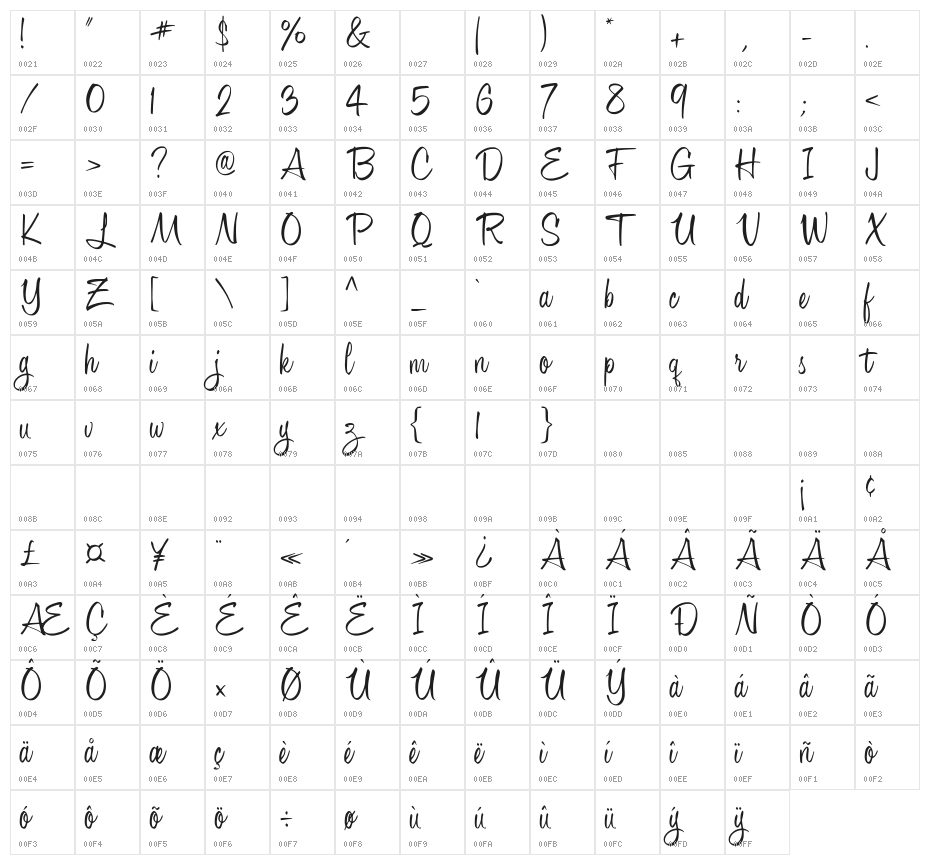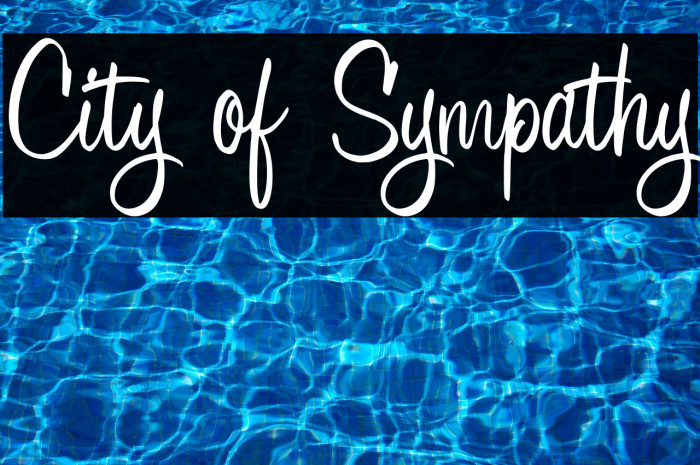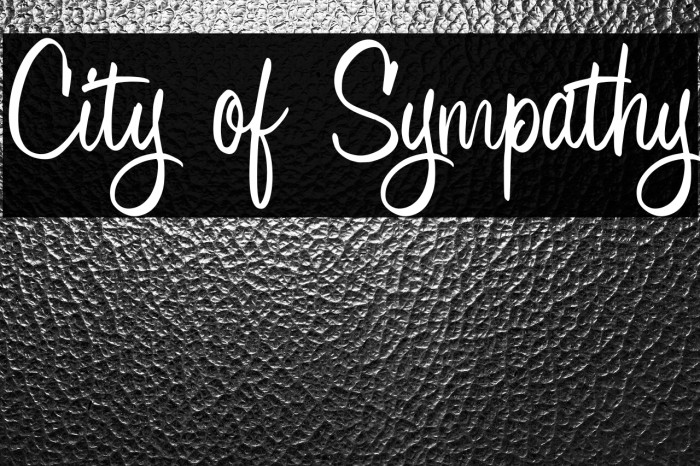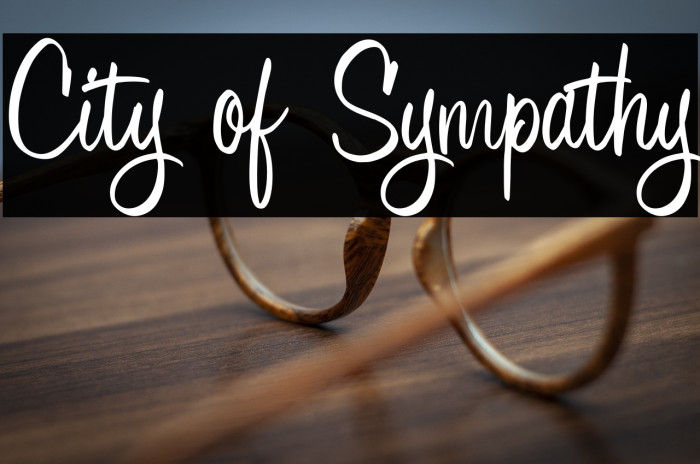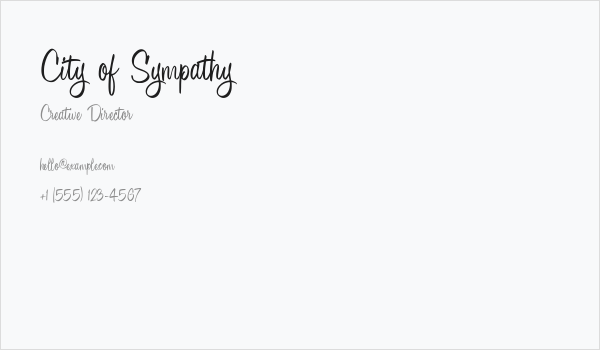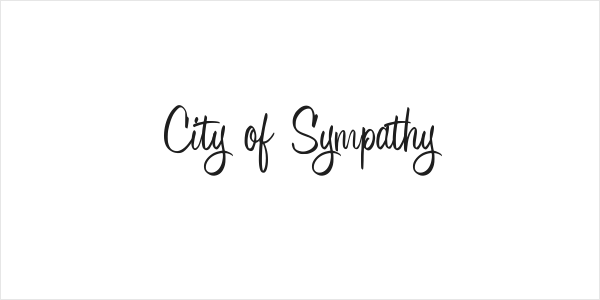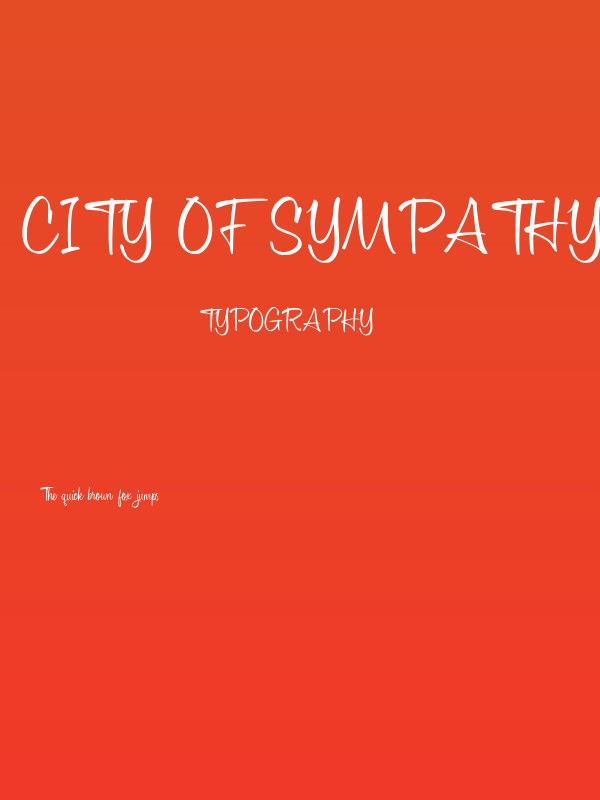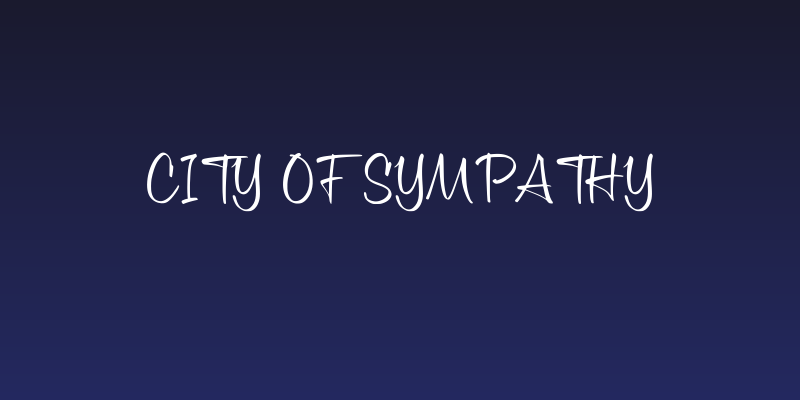
City of Sympathy Font
City of Sympathy Description
A playful and expressive handwritten script font with a casual and flowing style. The characters have a slight slant and varying stroke widths, giving it a dynamic and lively appearance.
| Overall Style | Casual and lively |
| Use Case | Logos, Invitations, Greeting cards |
| Proposed Projects | Greeting cards, invitations, personal branding. |